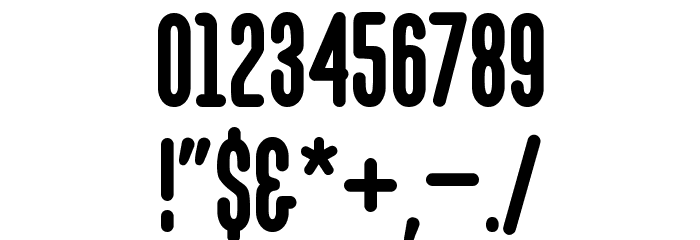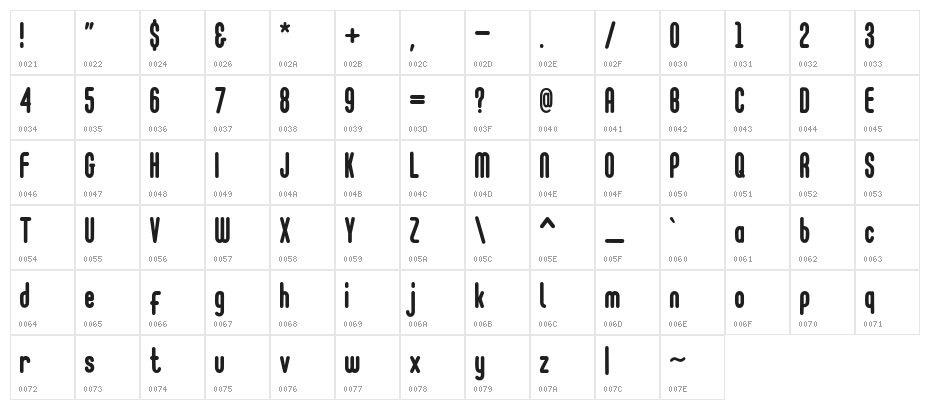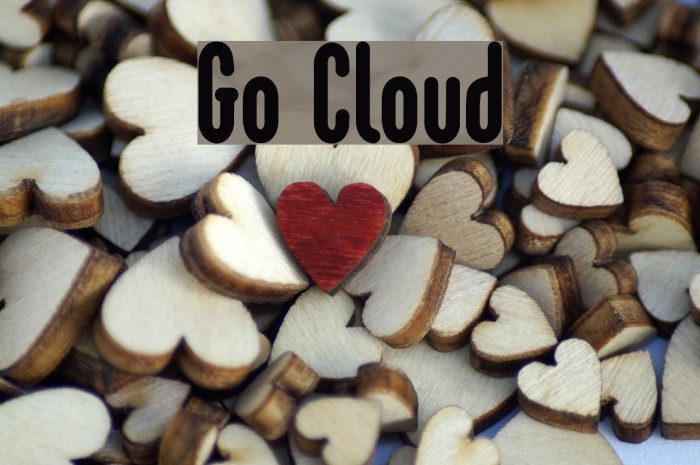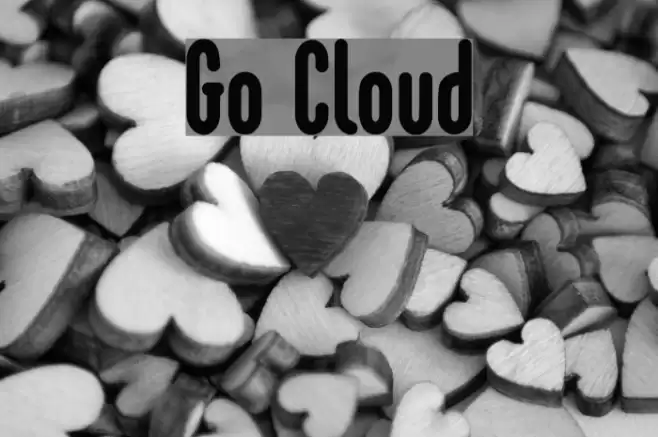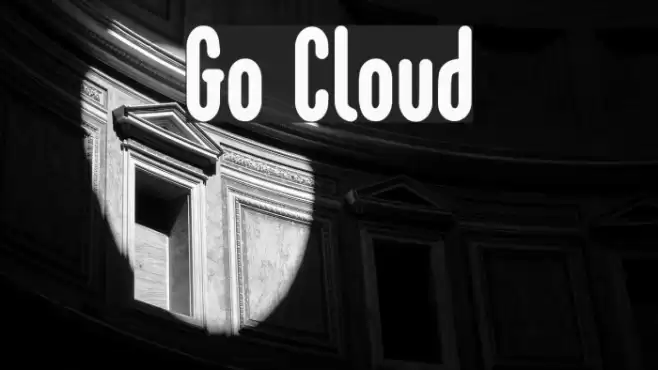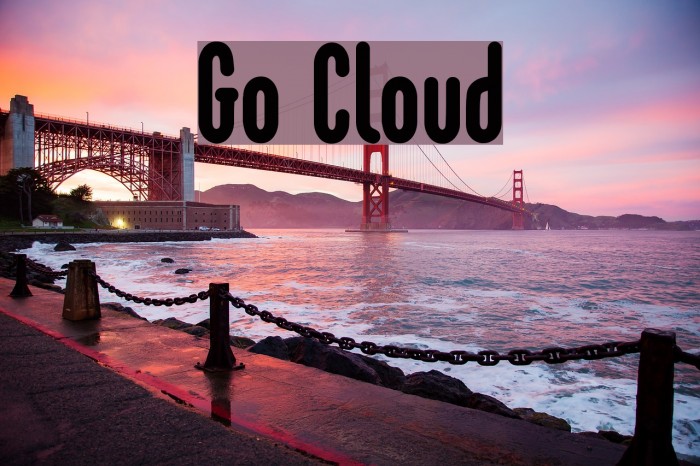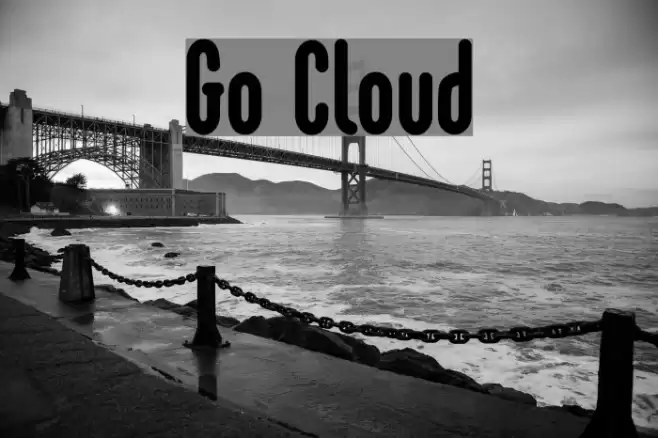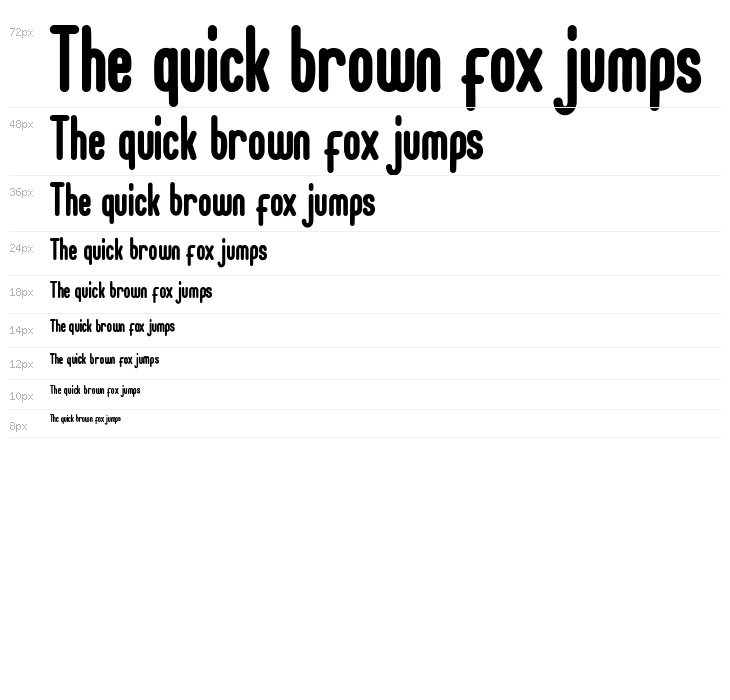
Go Cloud Font
Go Cloud Description
This font features a bold, rounded style with a playful and modern aesthetic. The characters are uniformly thick, giving a strong and confident appearance. The rounded edges soften the overall look, making it approachable and friendly. The uppercase and lowercase letters maintain a consistent style, with a slight variation in height and width that adds visual interest. The numerals are clear and easy to read, matching the boldness of the alphabetic characters. Special characters are well-integrated, maintaining the same rounded and bold characteristics. This font is versatile, suitable for a variety of design projects that require a modern and approachable feel.
| Proposed Projects | Ideal for branding, packaging, children's books, and playful advertising campaigns. |